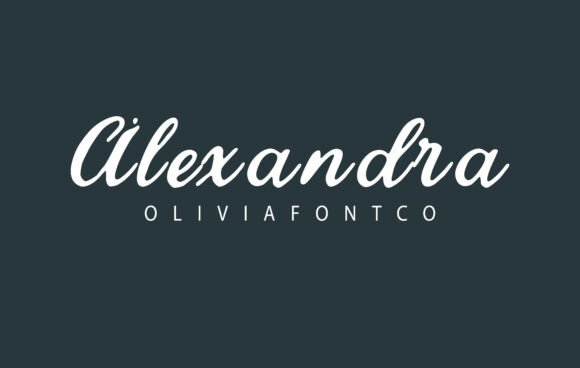
Introducing Alexandra Font: The Ultimate Handwritten Font for Creative Expression
Are you looking for a font that can add a touch of romance and elegance to your creative projects? Look no further than Alexandra Font, an authentic handwritten font designed to capture the hearts of designers and crafty enthusiasts alike. With its unique blend of sophistication and playfulness, Alexandra Font is poised to become your go-to choice for a wide range of design applications.
The Story Behind Alexandra Font
Alexandra Font is more than just a collection of letters and symbols; it’s a carefully crafted tool designed to bring your creative ideas to life. The font’s design is rooted in the concept of romanticism, with each letterform meticulously drawn to evoke a sense of whimsy and charm. Whether you’re working on a wedding invitation, a social media post, or a magazine headline, Alexandra Font is the perfect choice for adding a touch of personality to your design.
What Makes Alexandra Font Stand Out?
So, what sets Alexandra Font apart from other fonts in its class? Here are just a few reasons why this font is sure to become a favorite among designers:
- Authentic Handwritten Look: Alexandra Font boasts an authentic handwritten look that’s perfect for creating designs that feel personal and relatable.
- Romantic Touch: With its elegant letterforms and flowing lines, Alexandra Font adds a touch of romance to any design.
- Legibility: Despite its ornate appearance, Alexandra Font is highly legible, making it suitable for use as both title and body text.
- Versatility: From magazine headlines to social media posts, wedding invitations to branding materials, Alexandra Font is the perfect choice for a wide range of design applications.
Perfect for a Variety of Design Projects
One of the things that makes Alexandra Font so special is its versatility. Here are just a few examples of the many design projects where Alexandra Font can shine:
- Magazine Headlines: Add a touch of elegance to your magazine headlines with Alexandra Font’s sophisticated letterforms.
- Social Media: Stand out on social media with eye-catching graphics and posts created using Alexandra Font.
- Branding: Establish your brand’s identity with a custom logo or wordmark created using Alexandra Font.
- Wedding Invitations: Make your wedding invitations truly special with Alexandra Font’s romantic and elegant letterforms.
- Cards and Stationery: Add a personal touch to your cards and stationery with Alexandra Font’s beautiful handwritten look.
Tips for Using Alexandra Font Effectively
To get the most out of Alexandra Font, here are a few tips to keep in mind:
- Mix and Match: Experiment with different font sizes, colors, and styles to create visual interest and hierarchy in your designs.
- Play with Ligatures: Take advantage of Alexandra Font’s ligatures to add a touch of elegance and sophistication to your designs.
- Use it Sparingly: While Alexandra Font is beautiful in large doses, it can also be effective when used sparingly as an accent font.
In conclusion, Alexandra Font is a truly special font that’s sure to capture the hearts of designers and crafty enthusiasts alike. With its authentic handwritten look, romantic touch, and versatility, Alexandra Font is the perfect choice for a wide range of design applications. Whether you’re working on a wedding invitation, a social media post, or a magazine headline, Alexandra Font is sure to bring a touch of elegance and sophistication to your design.